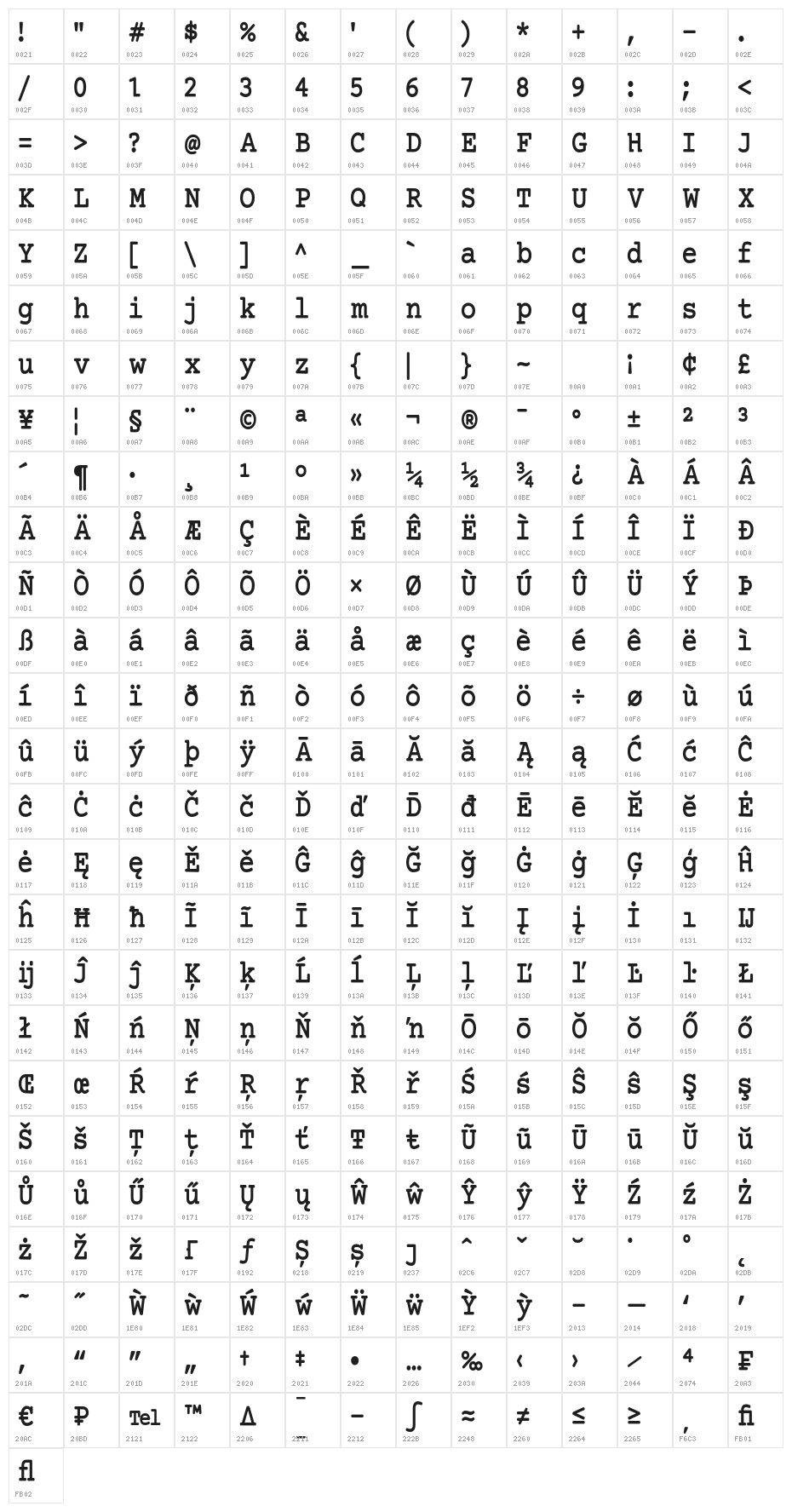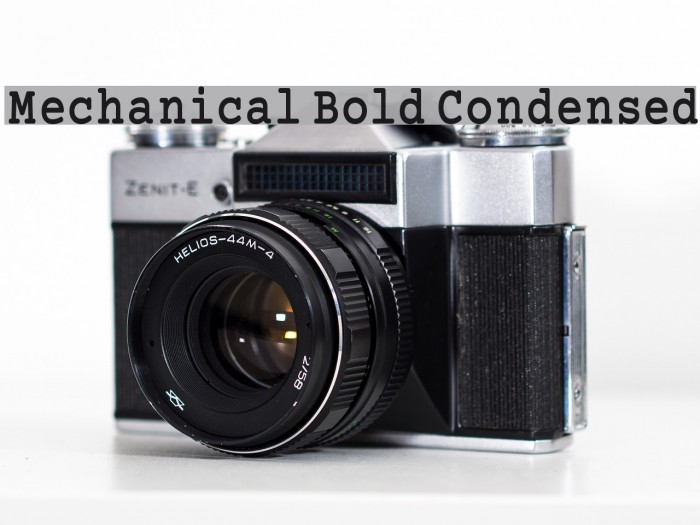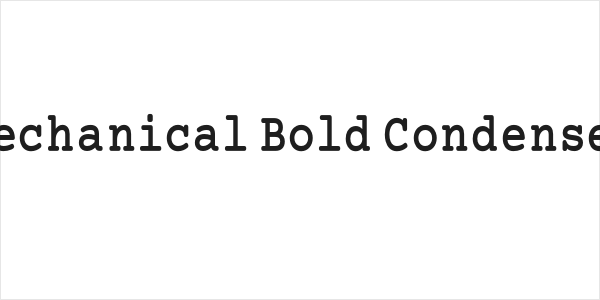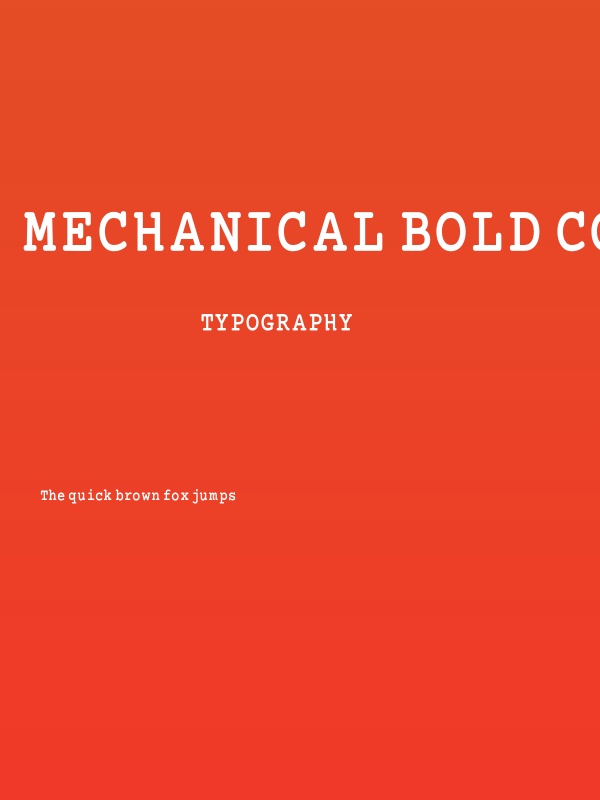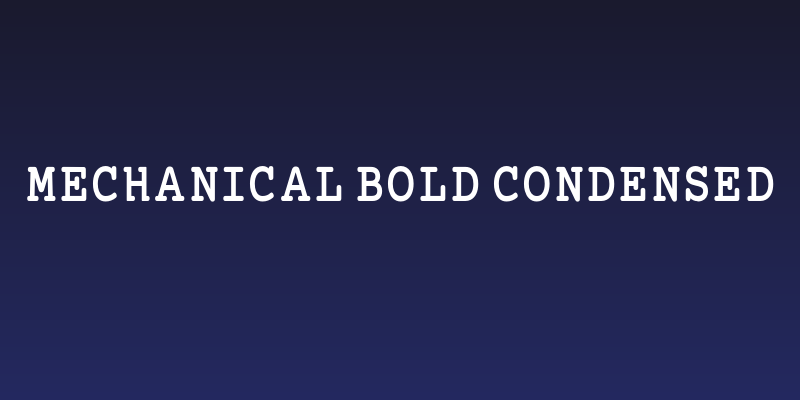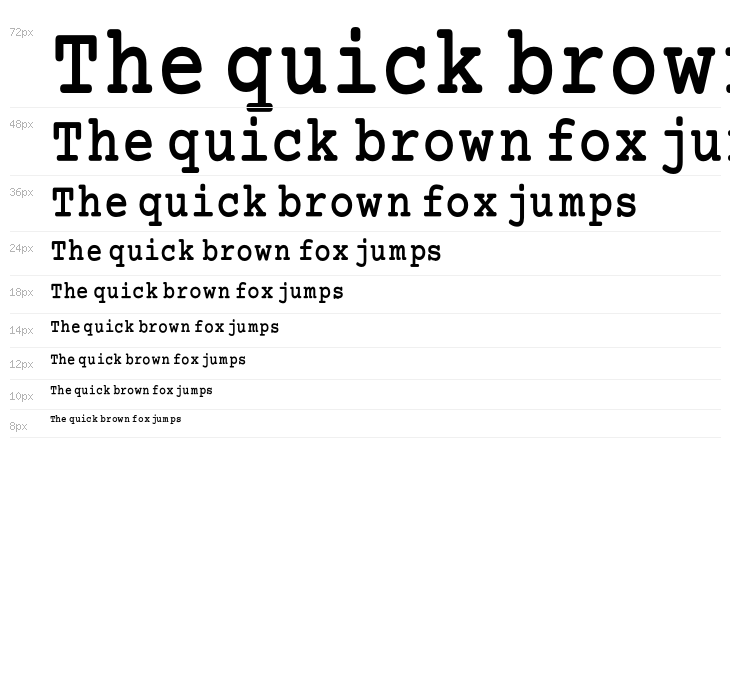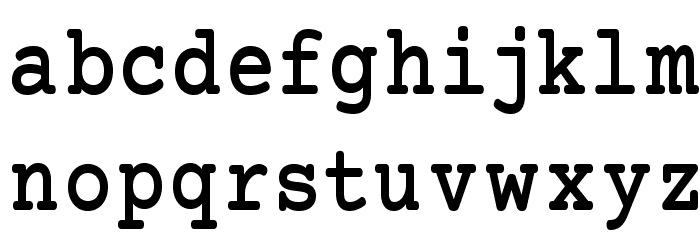
Mechanical Bold Condensed Font
Mechanical Bold Condensed Description
This font features a bold and condensed style, characterized by its strong and mechanical appearance. The uppercase letters are uniform and blocky, while the lowercase letters maintain a consistent height and width, contributing to a compact and efficient look. The numerals are clear and legible, with a uniform stroke width that matches the letters. Special characters are designed with the same boldness, ensuring they stand out effectively. The overall design is utilitarian, making it suitable for projects that require a straightforward and impactful typeface.
| Proposed Projects | Ideal for industrial-themed designs, technical manuals, posters, and branding that requires a strong and direct impact. |